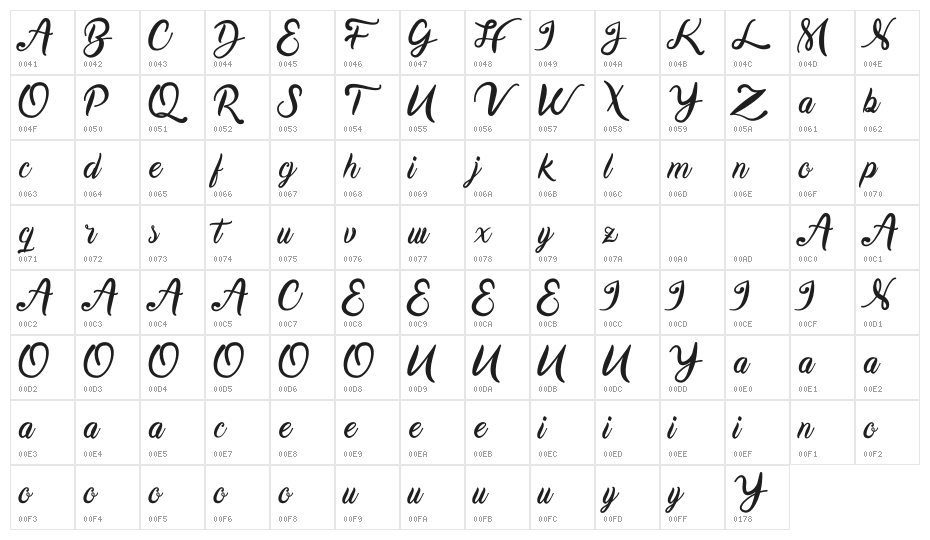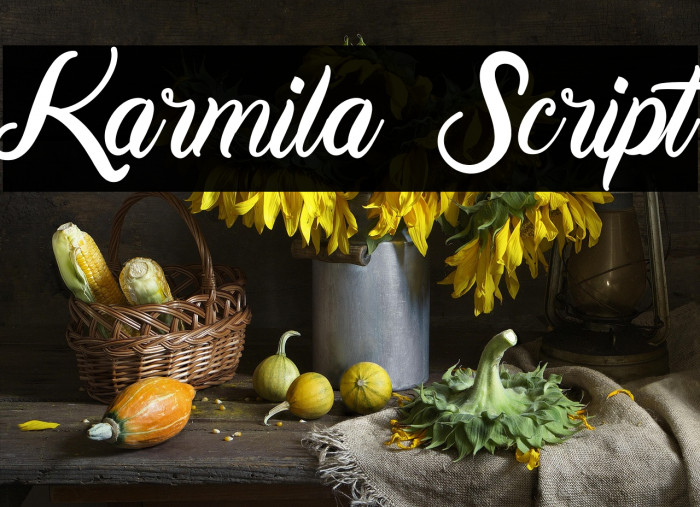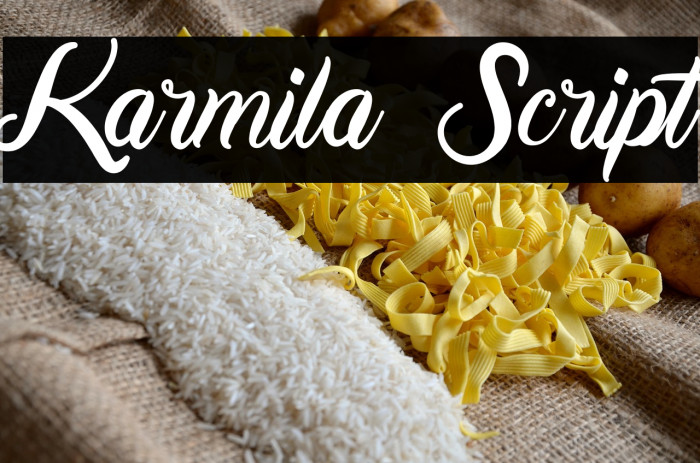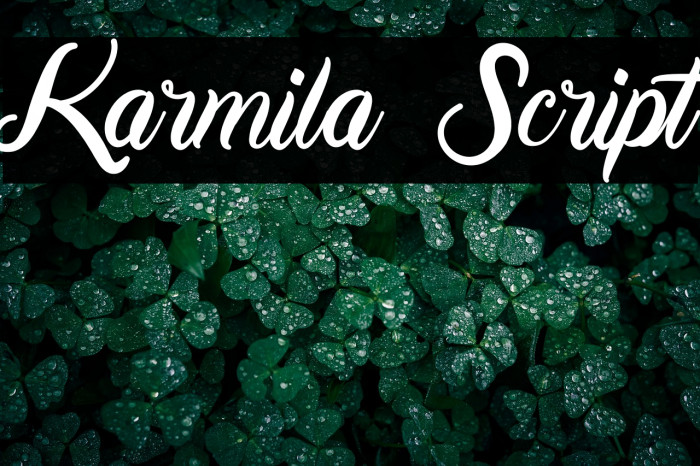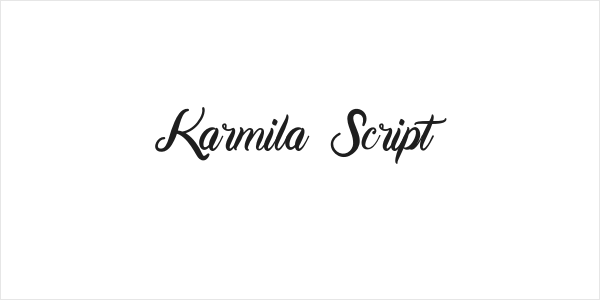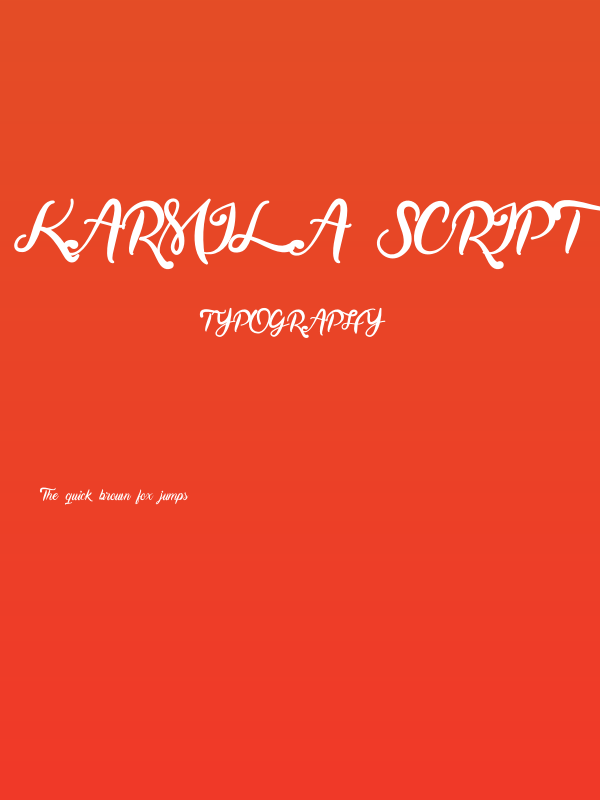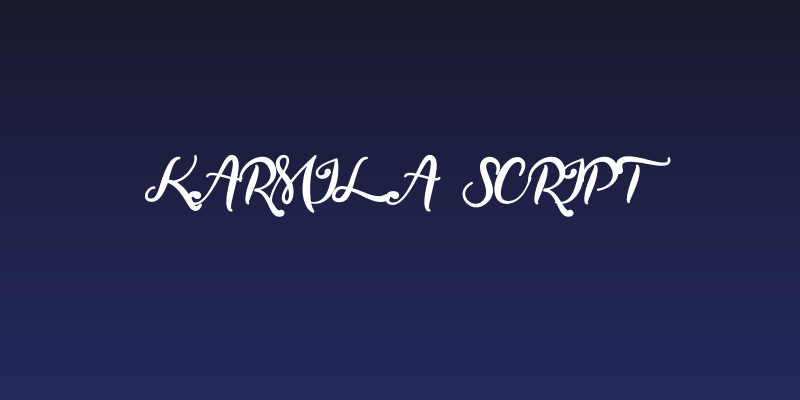
Karmila Script Font
Karmila Script Description
This elegant script font features flowing, interconnected letters that exude a sense of sophistication and grace. The uppercase characters are ornate, with sweeping curves and flourishes that add a touch of drama. The lowercase letters maintain a consistent flow, enhancing readability while retaining the decorative style. The font's overall appearance is both classic and modern, making it versatile for various design applications. Its smooth, cursive style is ideal for creating a sense of elegance and refinement in any project.
| Proposed Projects | Ideal for wedding invitations, greeting cards, branding, and elegant packaging designs. |